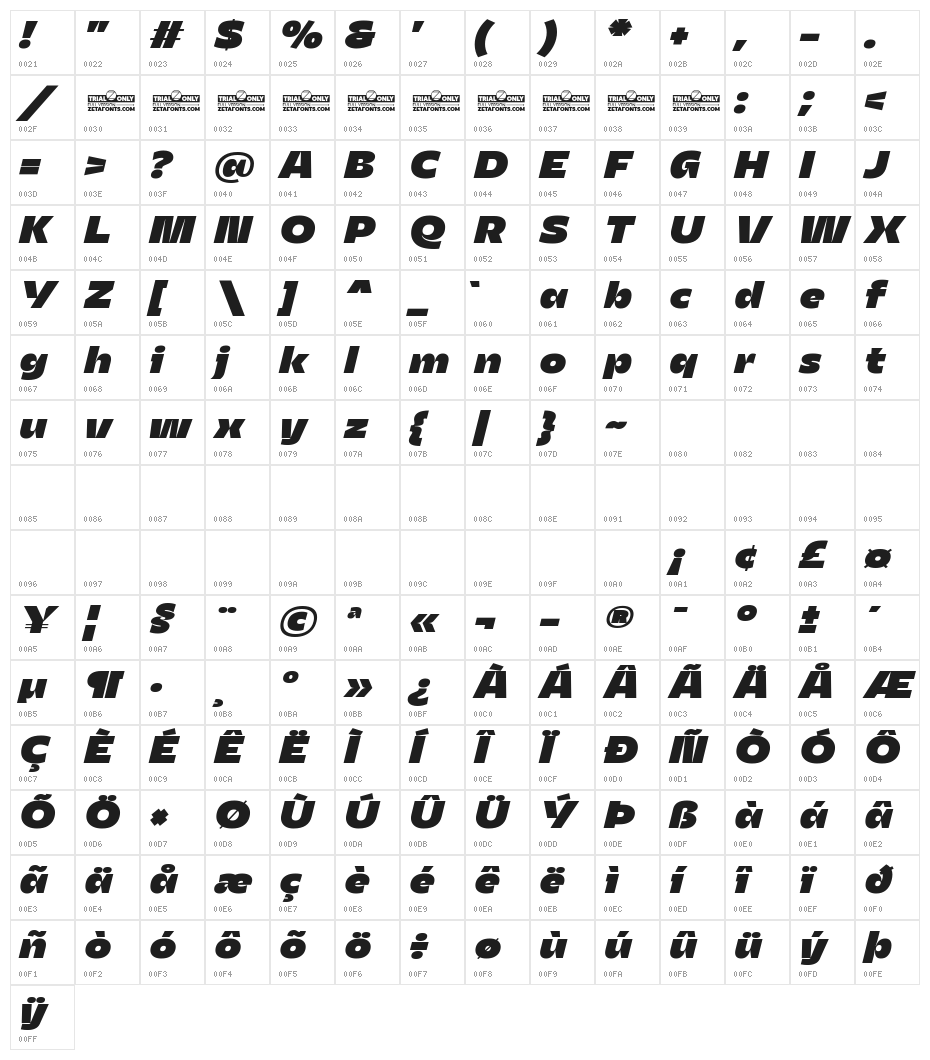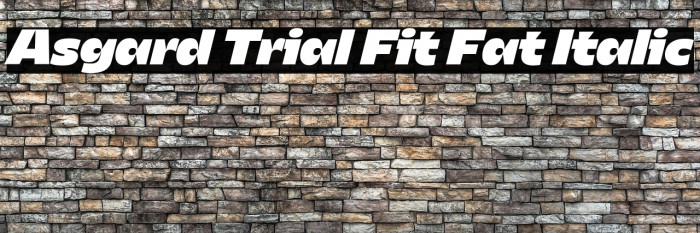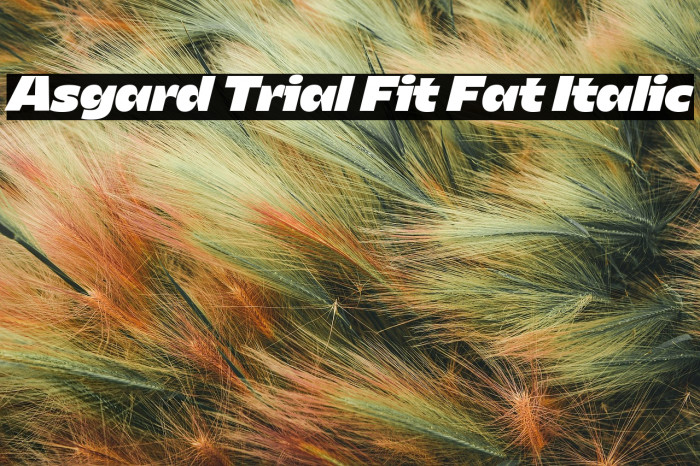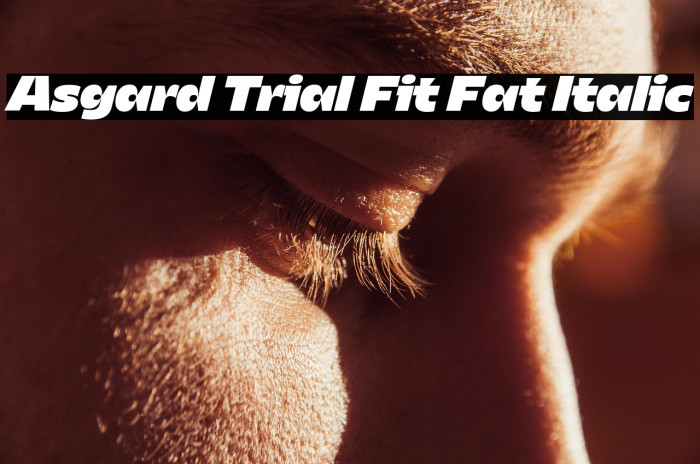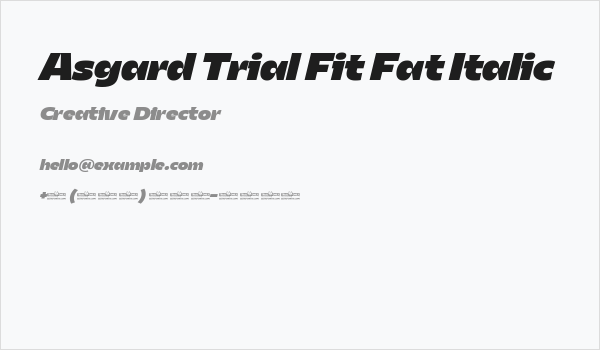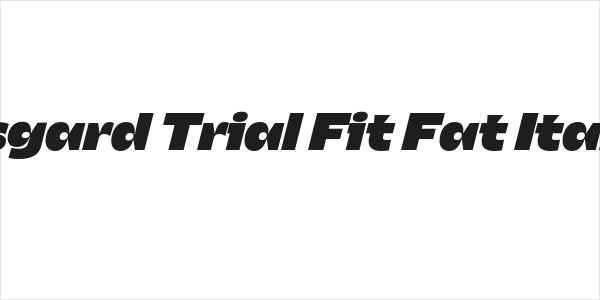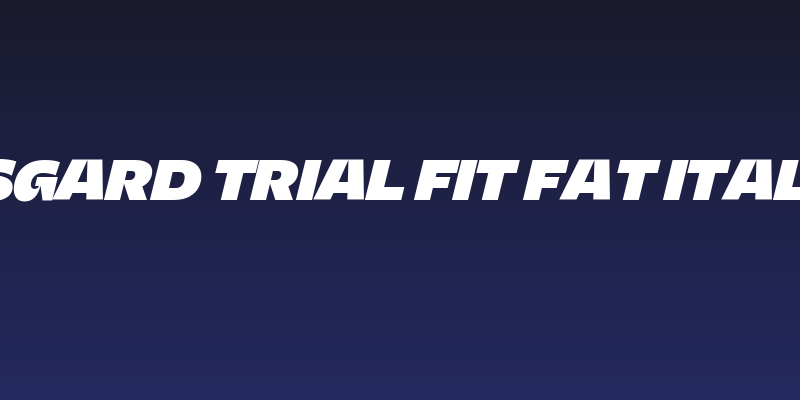
Asgard Trial Fit Fat Italic Font
Asgard Trial Fit Fat Italic Description
This font features a bold and dynamic style with a strong italic slant, giving it a sense of movement and energy. The characters are thick and robust, with a slightly condensed width that enhances their impactful appearance. The uppercase and lowercase letters maintain a consistent weight, contributing to a cohesive look across the alphabet. The numerals and special characters are designed to match the boldness of the letters, ensuring uniformity throughout. This font's modern and assertive style makes it suitable for projects that require a strong visual presence.
| Proposed Projects | Ideal for headlines, posters, branding, and any design needing a bold statement. |